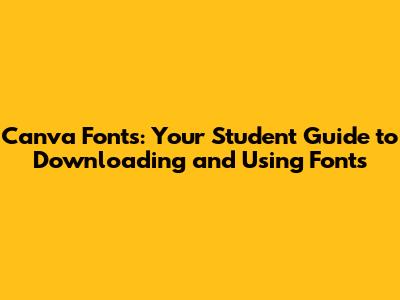
- Classic: Use Times New Roman for body text and Arial for headings.
- Modern: Use Open Sans (a popular free sans-serif font) for both body text and headings. Alternatively, use Lato.
- Playful: Use Montserrat (a free sans-serif) for headings and Poppins for body text.
Hey everyone! If you're a student like me, chances are you're using Canva for everything – presentations, posters, social media graphics, and all sorts of cool projects. And let's be real, fonts are a big deal when it comes to making your designs look awesome. Whether you're aiming for a sleek, modern look or something more playful and creative, the right font can make all the difference. In this guide, we'll dive deep into Canva fonts, covering how to download them, use them effectively, and specifically how students can get the most out of Canva's font offerings. We'll also explore the world of student fonts and give you the lowdown on everything you need to know. Get ready to level up your design game, my friends!
Understanding Canva Fonts: The Basics for Students
Alright, let's start with the fundamentals. Canva is amazing because it's super user-friendly, especially for students who might not have a ton of design experience. A huge part of Canva's appeal is its vast library of fonts. But what exactly are fonts, and why should you care? Simply put, a font is a specific design of lettering. Think of it as the visual personality of your text. There's a massive variety out there, from classic serifs like Times New Roman (those little lines, or serifs, at the ends of letters) to clean sans-serifs like Arial (no serifs). Then there are fancy script fonts, bold display fonts, and so much more. Choosing the right font is crucial because it sets the tone of your design. For example, if you're creating a presentation for a serious academic project, you'll probably want a clean, easy-to-read font. If you're designing a fun poster for a club, you might want something more playful and eye-catching.
Canva has a fantastic selection of fonts built right in. You can access them easily when you're editing your design. Just click on a text box, and you'll see a dropdown menu where you can browse the available fonts. They're generally categorized, which is super helpful. You can find sections like “Serif,” “Sans Serif,” “Display,” “Handwriting,” and more. This makes it easier to narrow down your choices based on the style you're going for. Canva also tells you which fonts are free and which are part of Canva Pro. As a student, you might not always have access to a paid subscription, so knowing which fonts are free is essential. Don't worry, though – there are tons of great free fonts available! You can filter the font list to show only the free options, which is a great way to save time. It's also worth noting that Canva frequently updates its font library, so there's always something new to discover. Keep an eye out for new additions, and don't be afraid to experiment with different fonts to see what works best for your projects. Remember, the goal is to make your designs visually appealing and communicate your message effectively. Canva makes this process super simple, so you can focus on creativity, not complicated design software.
When choosing a font, consider a few things. First, think about readability. Is the font easy to read at different sizes? Is it suitable for body text or just for headings? Second, think about the overall aesthetic. Does the font match the tone of your project? Is it modern, classic, playful, or serious? Thirdly, consider font pairings. Using two or three fonts in a design can add visual interest, but it's important to choose fonts that complement each other. Avoid using fonts that are too similar or that clash. With a little practice, you'll be choosing the perfect Canva fonts like a pro. And as a student, the more familiar you are with Canva's font offerings, the faster you'll be able to create amazing designs that stand out from the crowd. So, dive in, explore the options, and have fun!
How to Download and Use Fonts in Canva: A Step-by-Step Guide for Students
Now, let's get into the nitty-gritty of how to download and use fonts in Canva, specifically for students. While Canva offers a massive selection of fonts within the platform, there might be times when you want to use a font that isn't already included. Don't worry, there's a way to do it, but it requires a Canva Pro subscription. If you're a student, your institution might provide a Pro account, so check with your school's resources. If you don't have access to Pro, you're still in luck! You can get super creative with the fonts Canva provides or look for free fonts online and use them to inspire your designs.
Here’s how to download and use fonts, both within Canva and with external resources:
1. Using Canva's Built-In Fonts: This is the easiest and most common way to use fonts in Canva. As mentioned earlier, just click on a text box in your design, go to the font dropdown menu, and start browsing. You can search by font name or filter by style (Serif, Sans Serif, etc.). You’ll see a little crown icon next to fonts that are part of Canva Pro. Otherwise, they are ready to go for free! Once you've found a font you like, click on it, and it will be applied to your text. You can adjust the font size, color, spacing, and more to customize it further. Canva’s font selection is pretty comprehensive, so you'll usually find what you need without having to download anything extra.
2. Uploading Custom Fonts (For Canva Pro Users): If you do have Canva Pro and want to use a font that isn't already in Canva, you can upload it. This is super helpful if you have a specific font for a brand or project. The process is easy, but you'll need the font file (usually a .ttf, .otf, or .woff file). Go to the “Brand Kit” section in Canva (you can find it in the left-hand menu). In the Brand Kit, you'll see an option to upload fonts. Click “Upload a font” and select the font file from your computer. Canva will then upload the font, and you can use it in your designs. Keep in mind that uploading fonts requires a Pro subscription, and you should make sure you have the proper licensing rights to use the font.
3. Finding and Using External Fonts (Using Canva's Font and Inspiring Your Own Design): Even if you don't have Canva Pro, you can still get creative using external fonts! Instead of actually uploading the font, you can find inspiration from a font you like and then recreate it using the available fonts within Canva. There are tons of websites where you can find free fonts. Websites like Google Fonts, DaFont, and Font Squirrel offer a wide selection of free fonts that you can browse. Once you find a font you like, you can examine its characteristics, and then look for similar fonts within Canva. Canva provides a lot of flexibility in terms of text customization (size, spacing, etc.), so you can adjust the font you choose until it matches the look you’re going for. This is a great way to mimic the look of a font you like, without paying for it or worrying about uploading it.